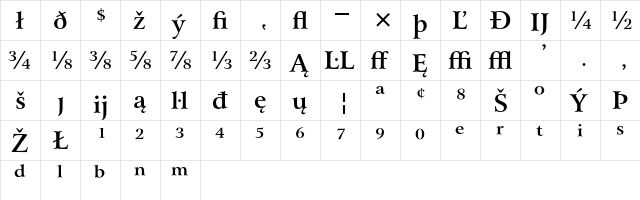
Bitstream Arrus Bold Extension
Design Context for Bitstream Arrus Typeface
Bitstream Arrus offers clean, dependable letterforms without strong stylistic allegiance, making it a practical choice for designers who need flexibility. Its bold stroke weight gives it real presence on the page.